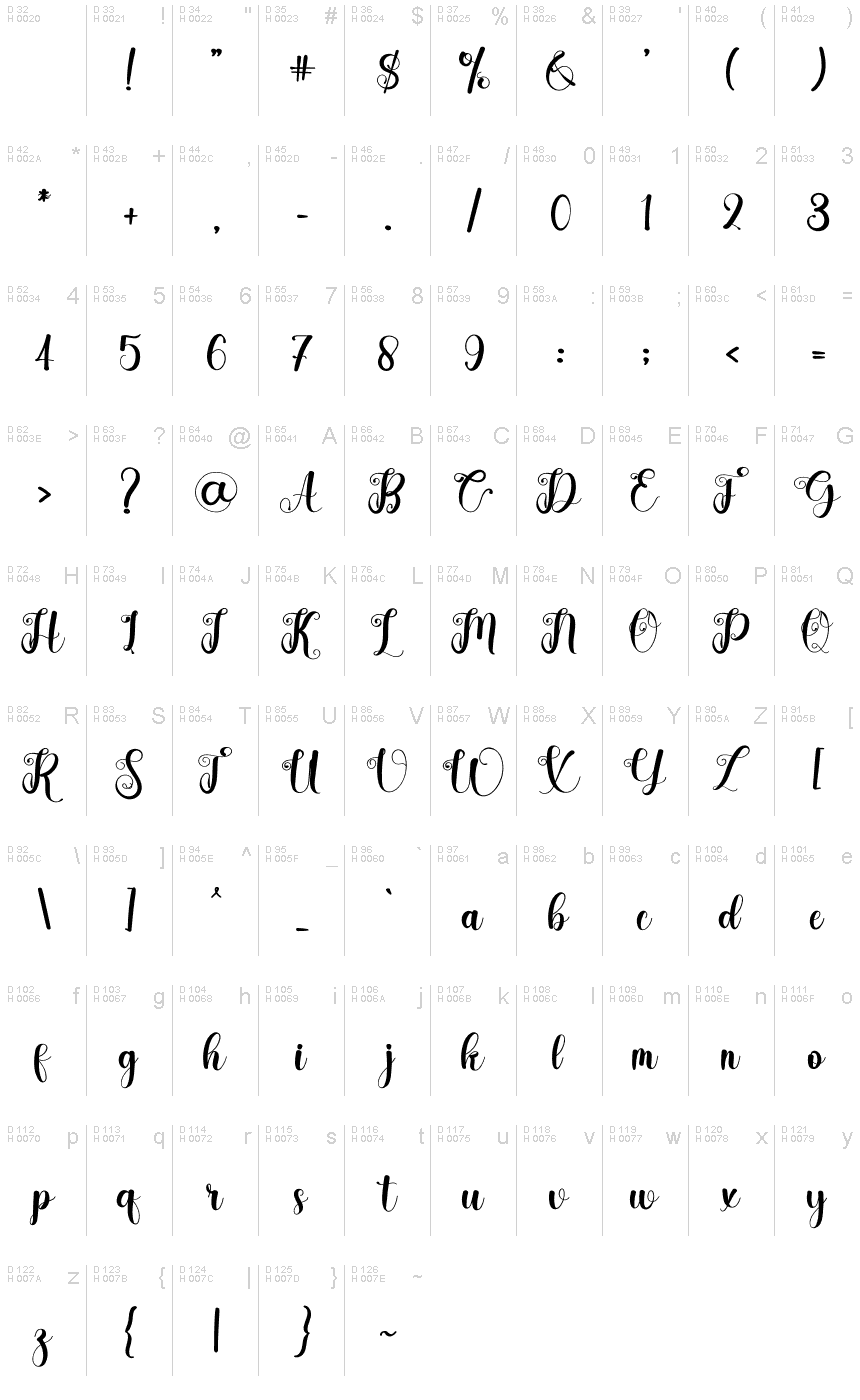
Flourish
Flourish, a mesmerizing calligraphy font by FreshtypeINK, gracefully combines elegance and sophistication. With its fluid strokes and delicate curves, this exquisite typeface adds a touch of refinement to any project. Perfect for wedding invitations, romantic novels, or high-end branding materials, Flourish infuses an air of timeless beauty. Its versatile range of font styles allows for both bold statements and gentle whispers. Whether crafting luxurious packaging designs or creating expressive quotes for social media graphics, Flourish effortlessly captures attention and conveys a sense of artistry. Elevate your projects with the enchanting allure of Flourish's calligraphic charm.